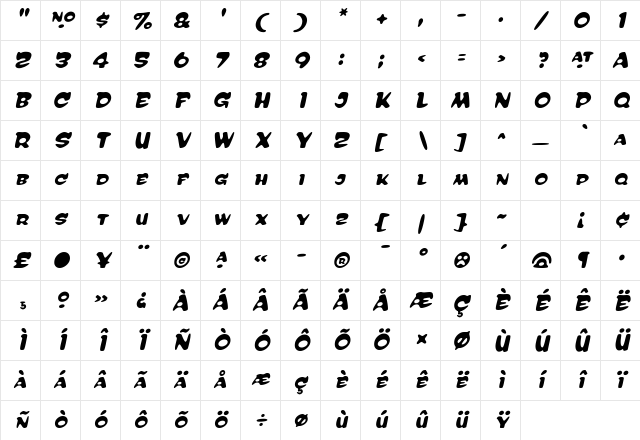
Reasonist Medium Italic
Foundry: Rian Hughes . A Device font
Design Context for Reasonist
Reasonist is a composed and adaptable typeface that performs quietly and consistently across a wide range of design contexts. The slanted form adds forward momentum and visual energy.
Pro Tip: Use Reasonist for emphasis, pull quotes, and subheadings where its slanted energy can add rhythm to the layout.